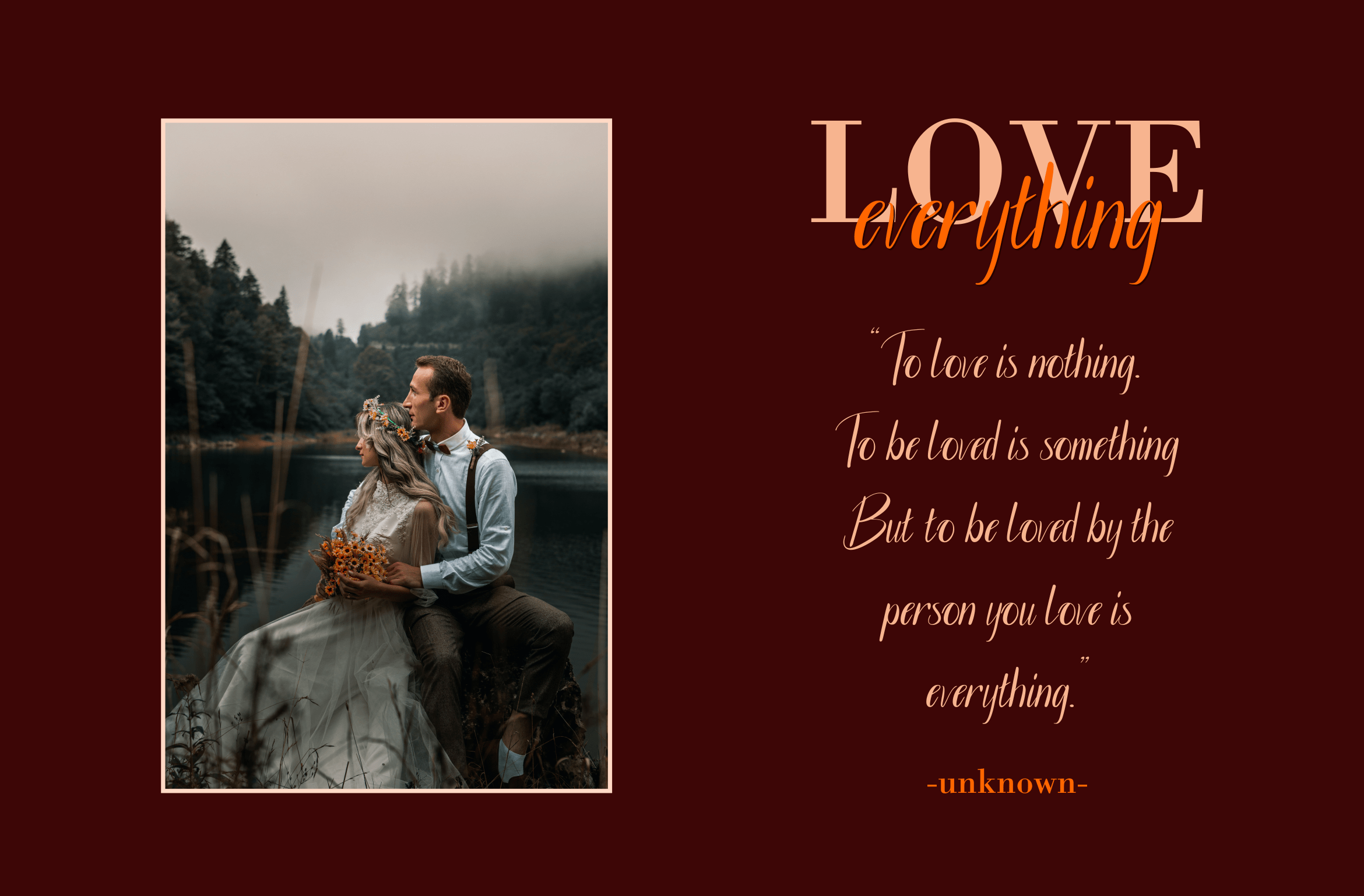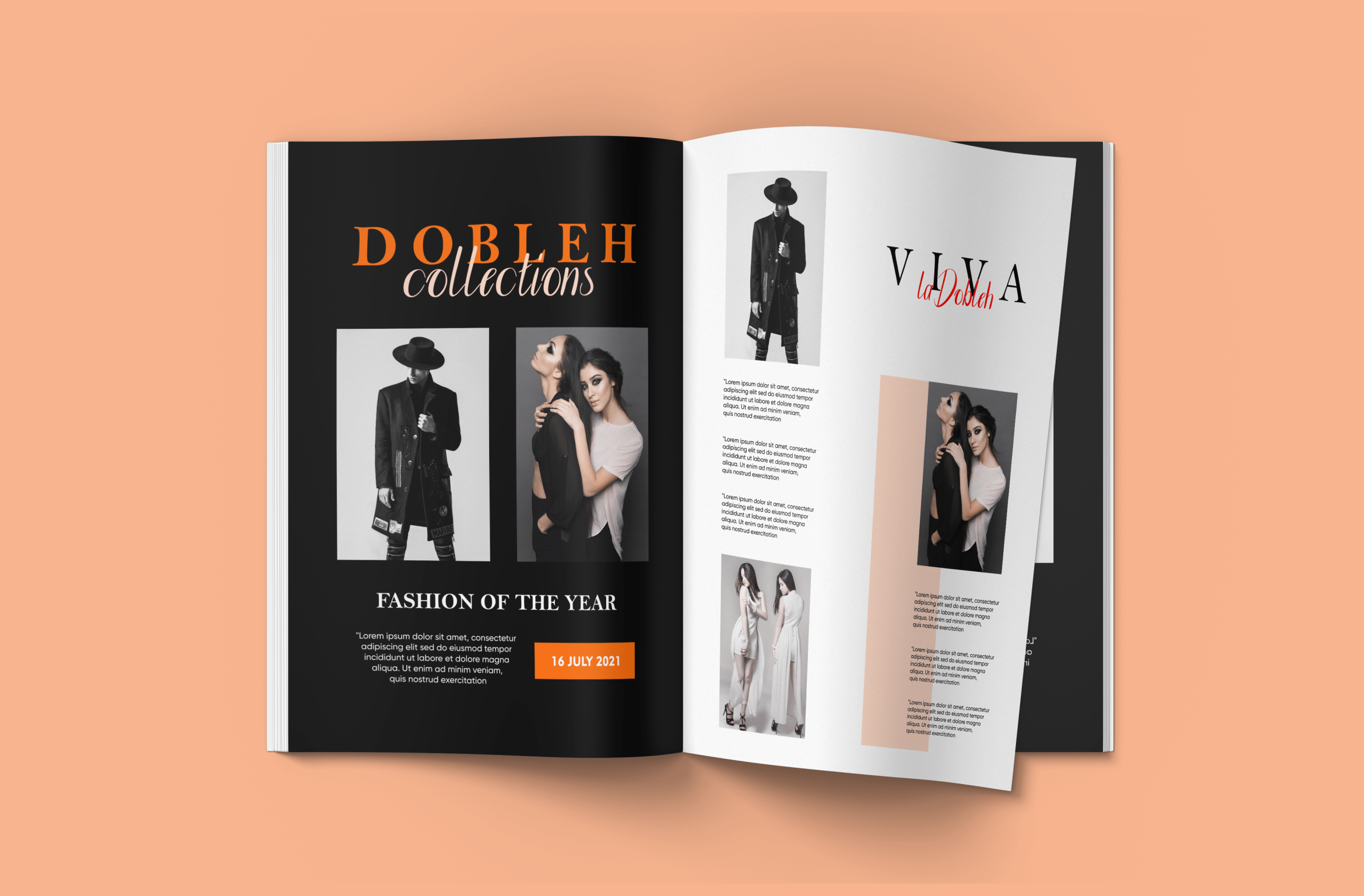
Brigitta Austin Script Font
This is a Script Handwritten Font. Brigitta Austin is perfect for product packaging, branding project, magazine, social media, wedding, or just used to express words above the background.
With a very beautiful & elegant touch, perfect for your creative projects. The concept of the font is different from others to use. Enjoy our work 🙂